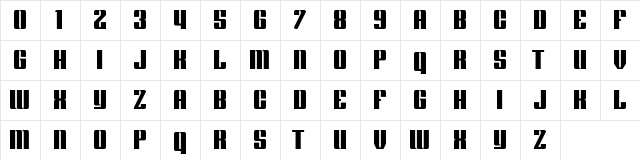
Peng Chau Nights Regular
| Foundry | Damien Gosset |
| Designer | Damien Gosset |
Design Context for Peng Chau Nights Typeface
Peng Chau Nights is a composed and adaptable typeface that performs quietly and consistently across a wide range of design contexts.